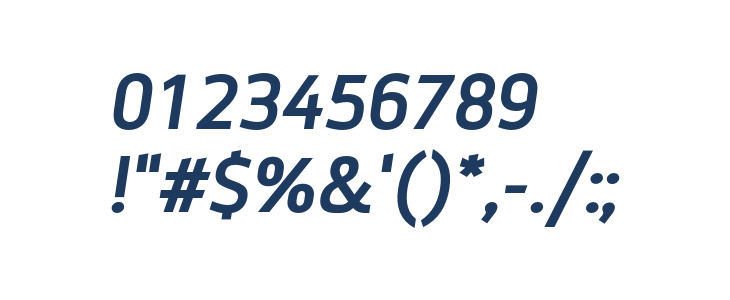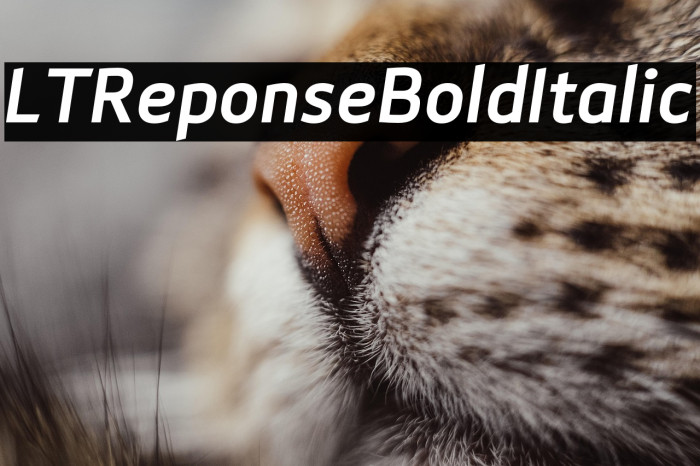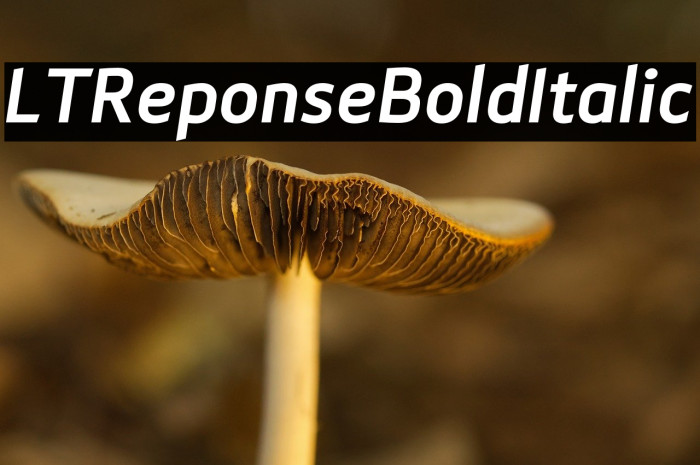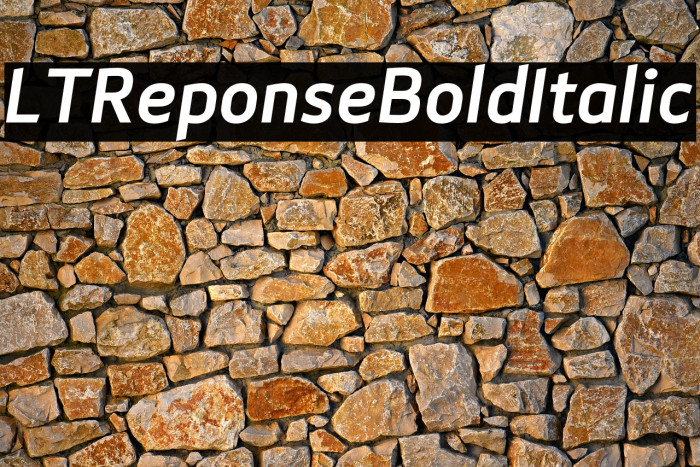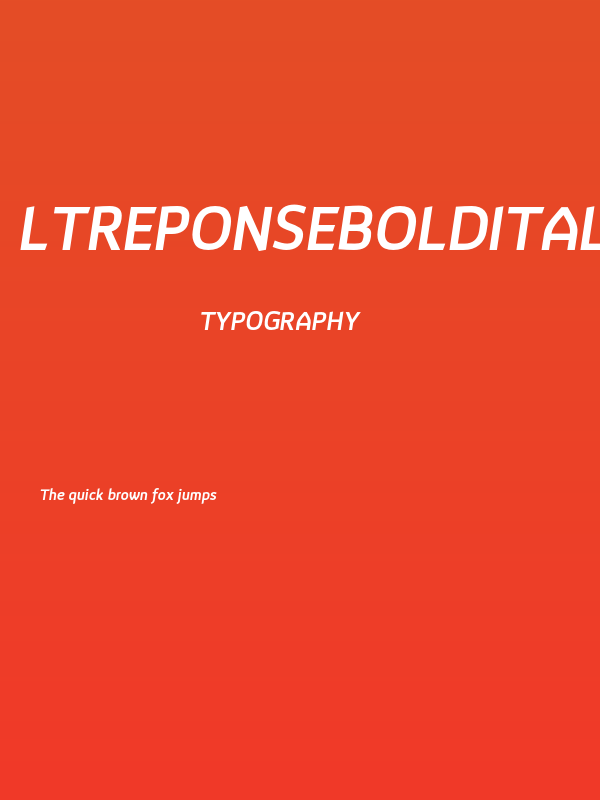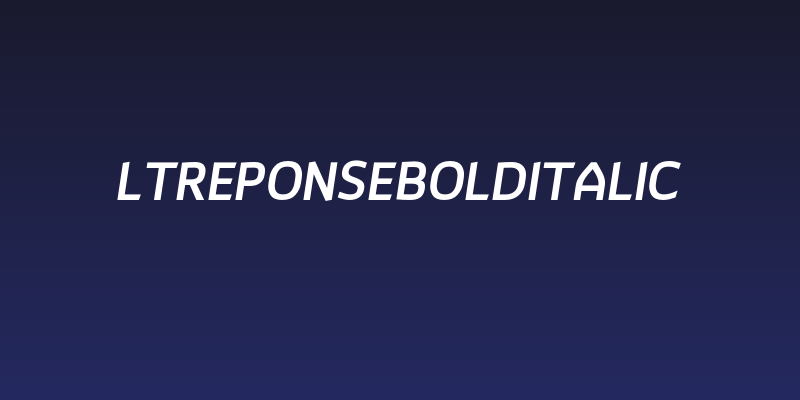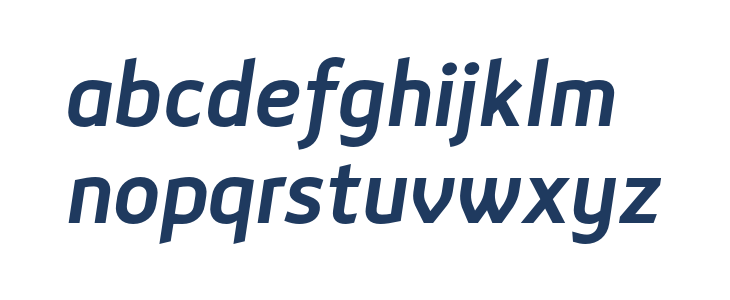
LTReponseBoldItalic Font
LTReponseBoldItalic Description
This font features a bold and italicized style, characterized by its dynamic and forward-leaning appearance. The letters are well-defined with a consistent stroke width, providing a sense of strength and modernity. The uppercase letters are slightly taller than the lowercase, maintaining a uniform width that enhances readability. The numerals are clear and distinct, matching the overall boldness of the alphabet. Special characters are designed to complement the alphabet, ensuring a cohesive look across all text elements. This font's italic nature adds a sense of motion and energy, making it suitable for various creative applications.